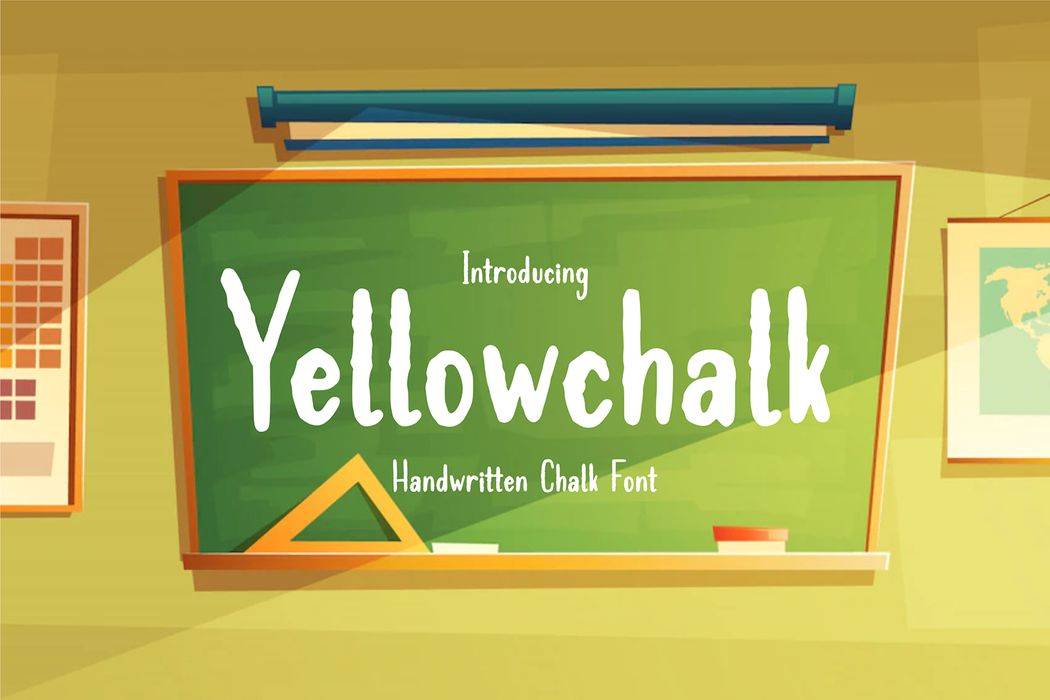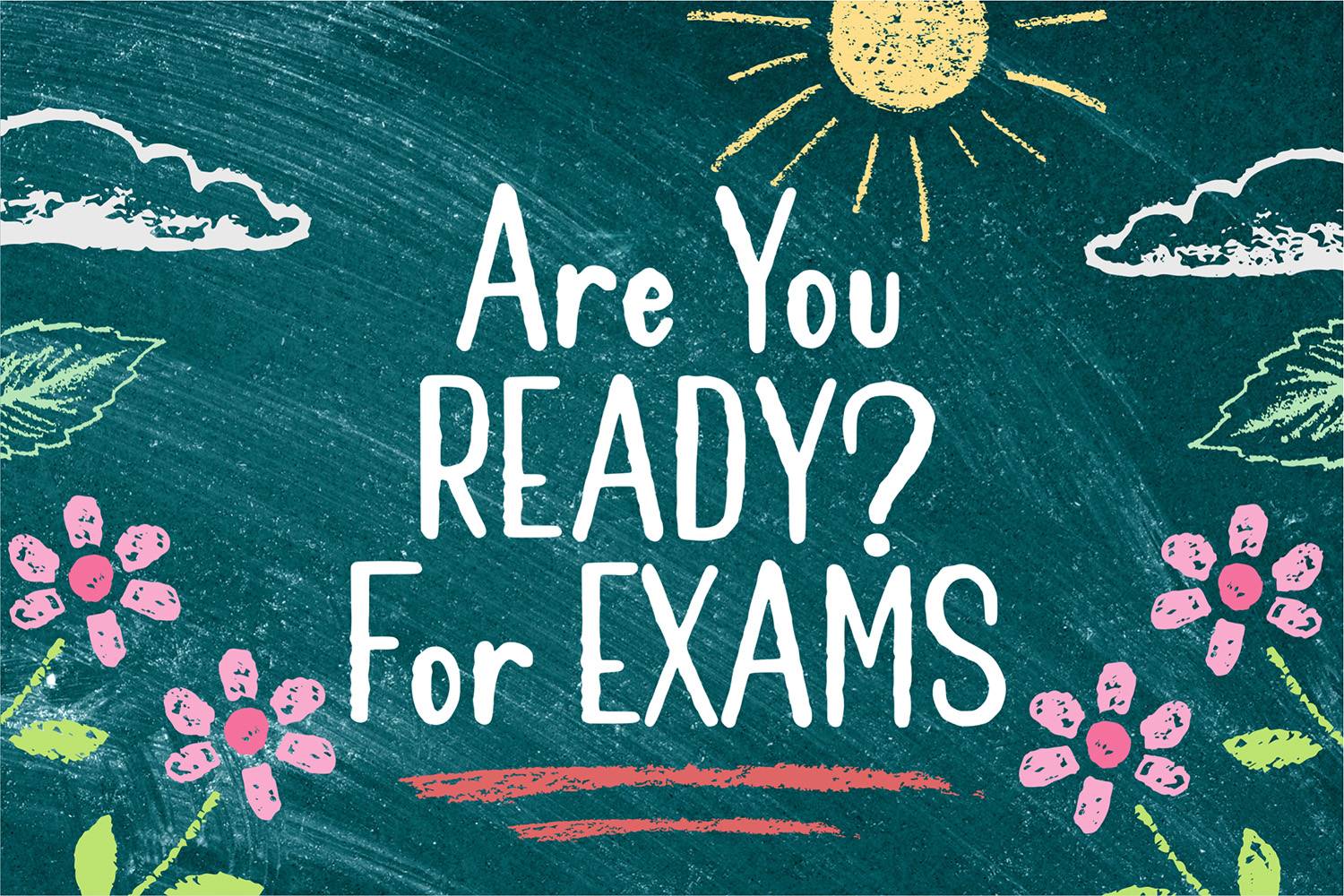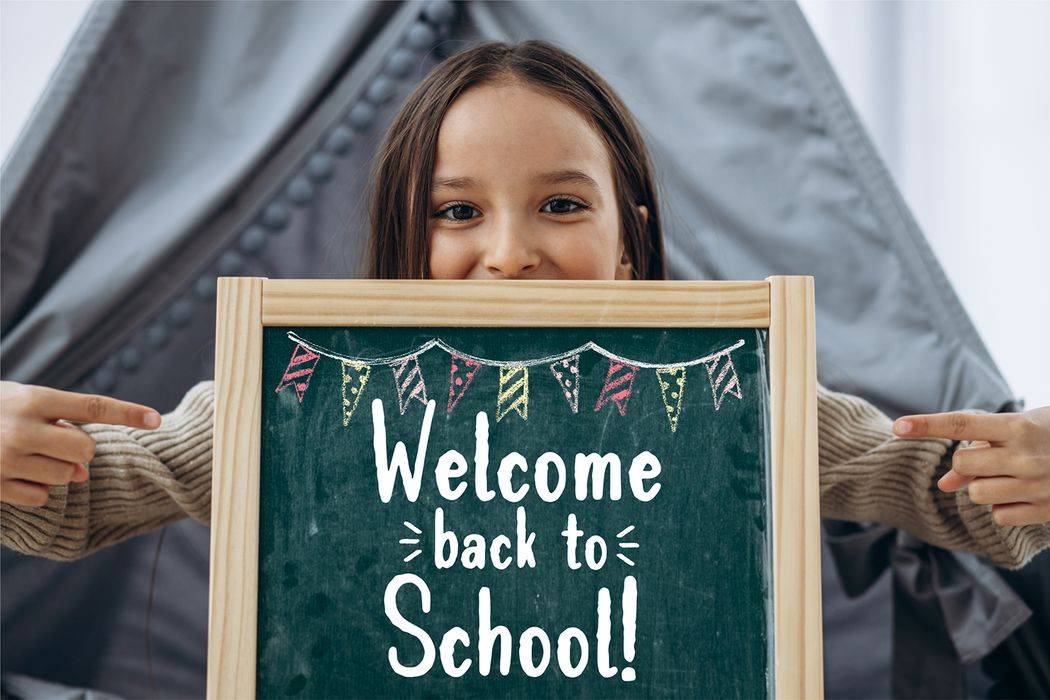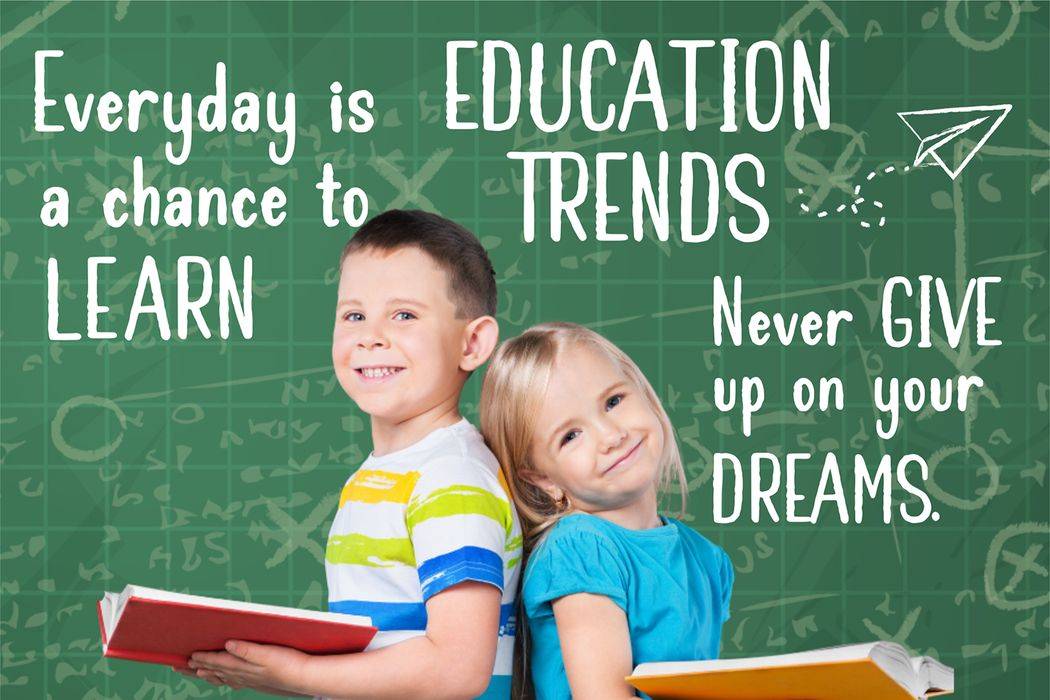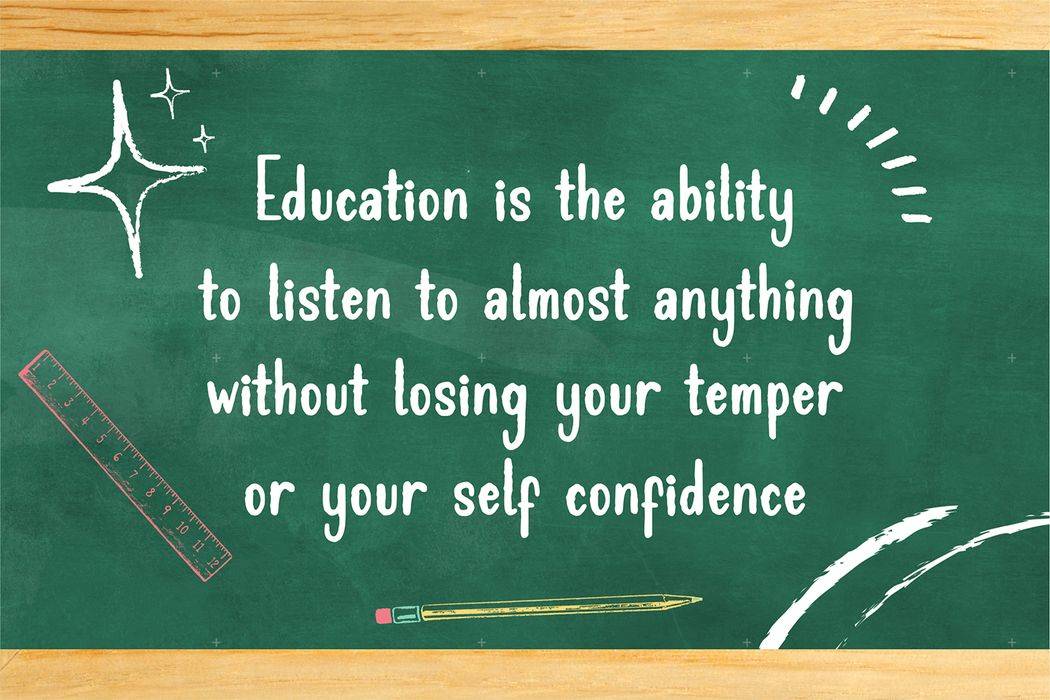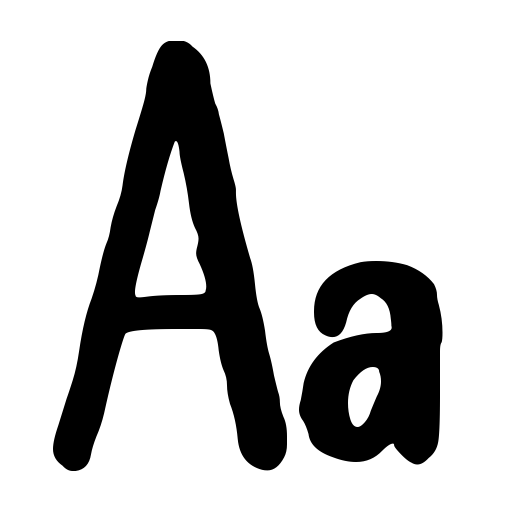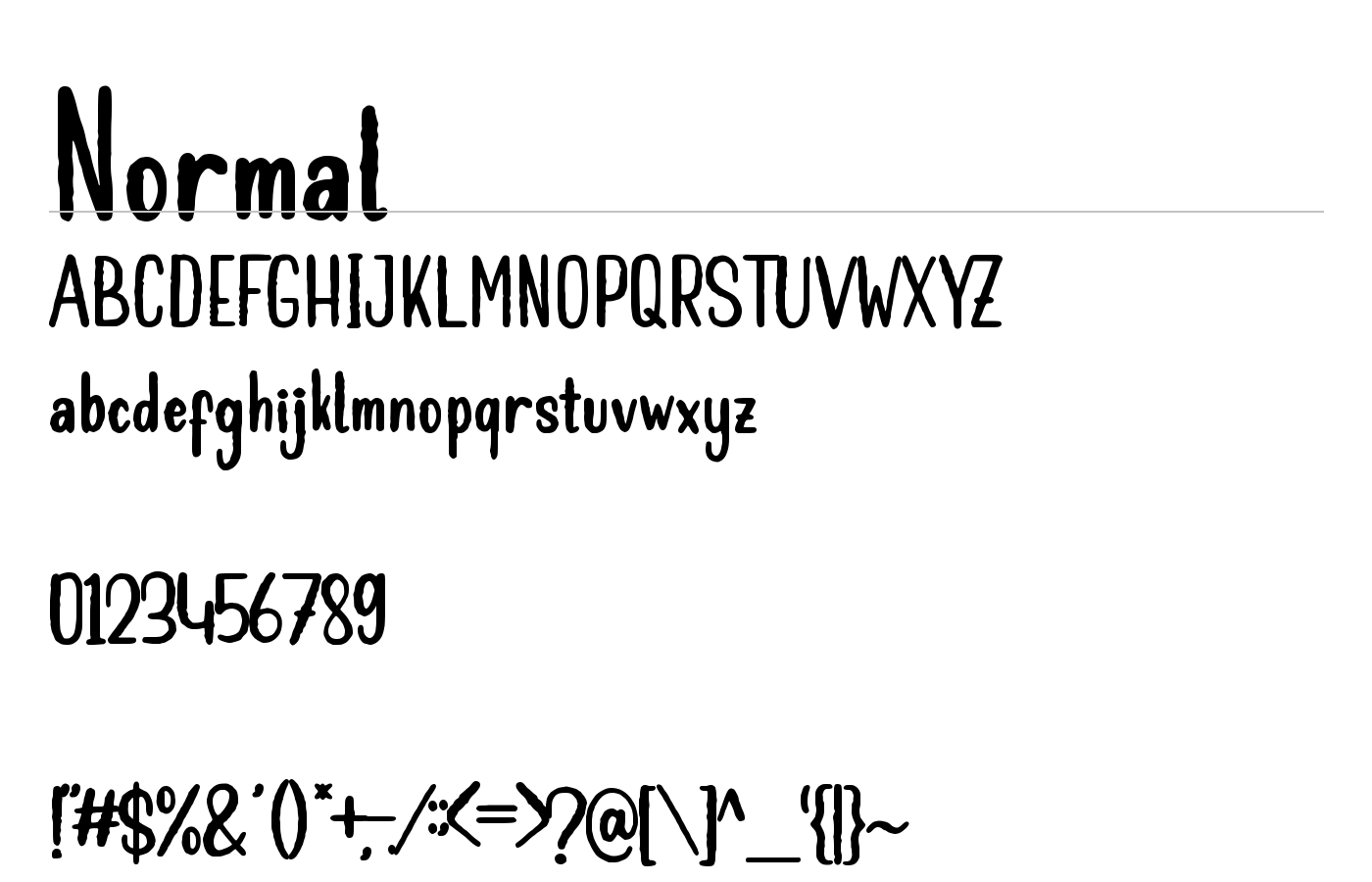
Yellowchalk is a playful and informal handwritten sans serif font that features uneven, slightly rough-edged strokes, giving it a natural and chalk-like texture. Its tall, narrow letterforms with modest contrast and quirky shapes make it ideal for creative, casual, or educational uses where a friendly and approachable vibe is desired, such as posters, children's materials, or fun branding projects. This font works best in display or headline settings, adding a unique handcrafted charm that stands out with personality.
Yellowchalk Font
About Yellowchalk Font